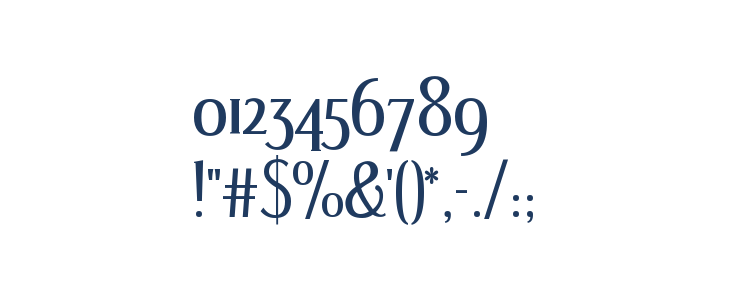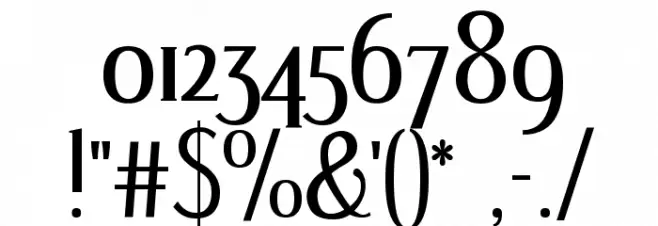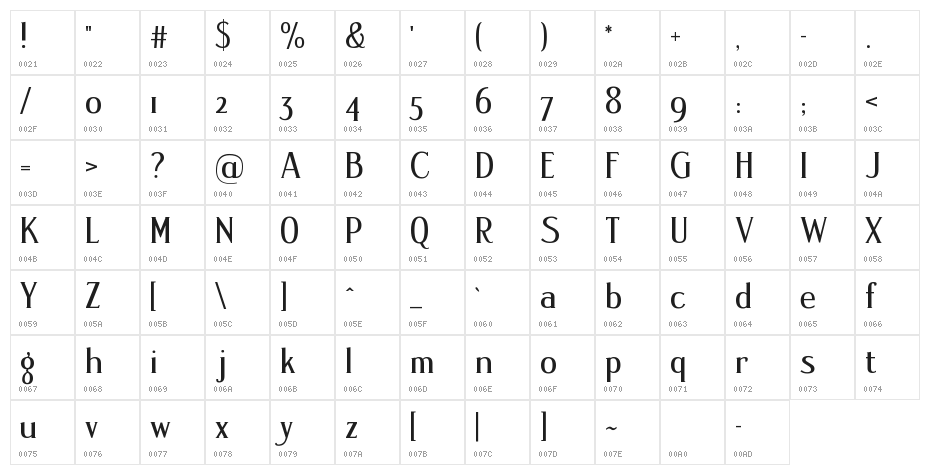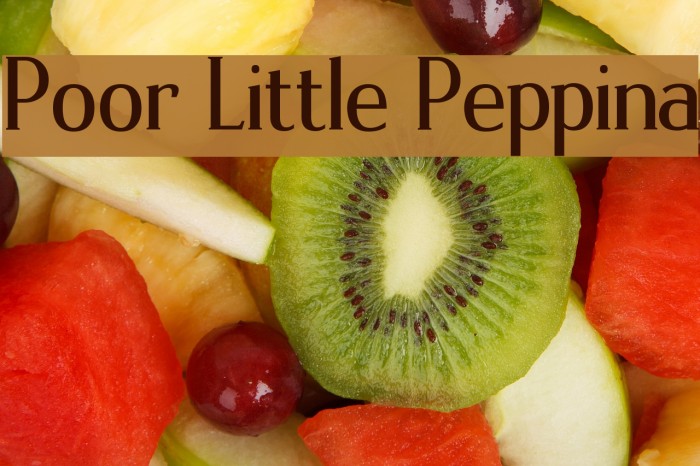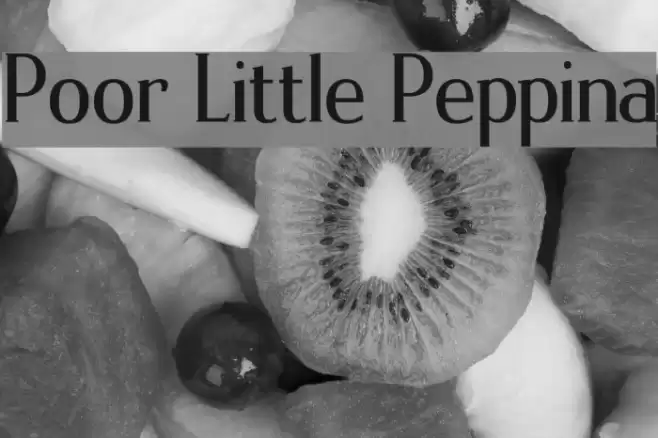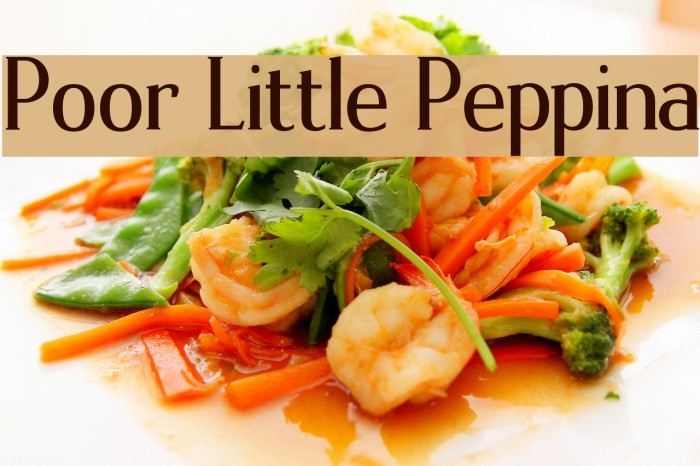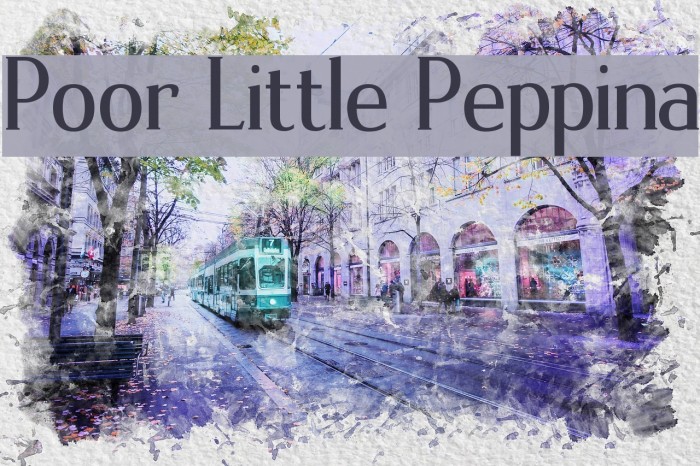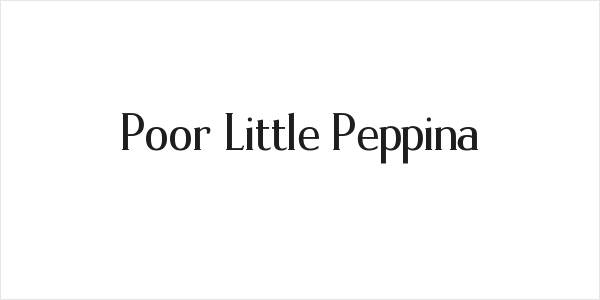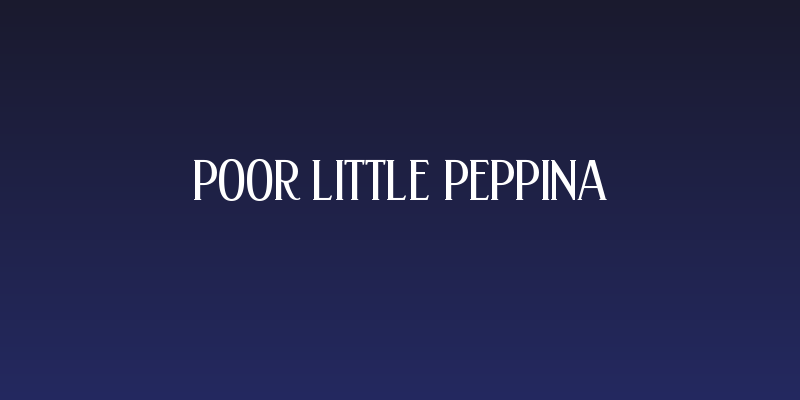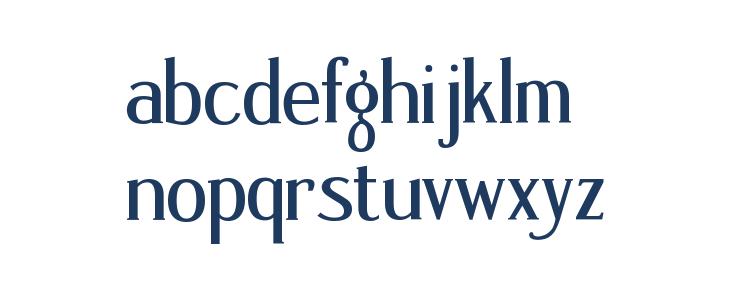
Poor Little Peppina Font
Poor Little Peppina Description
This font features a classic serif style with elegant and slightly elongated letterforms. The uppercase letters are tall and commanding, while the lowercase letters maintain a consistent and harmonious flow. The numerals are distinct and easy to read, with a slight curvature that adds a touch of sophistication. Special characters are well-integrated, maintaining the overall aesthetic. The font's design is both timeless and versatile, suitable for a variety of applications where readability and elegance are paramount.
| Proposed Projects | Ideal for book covers, editorial design, formal invitations, and branding projects that require a touch of elegance. |